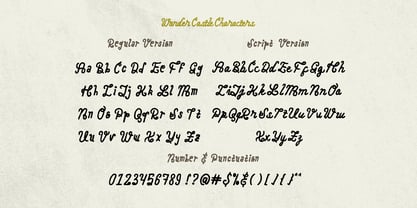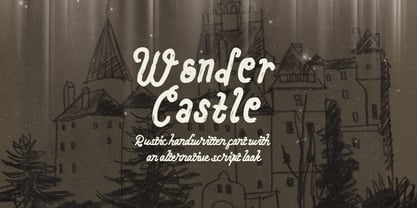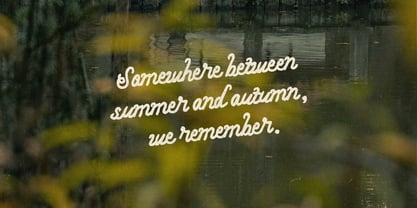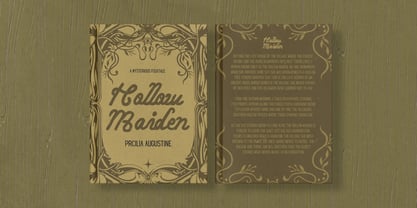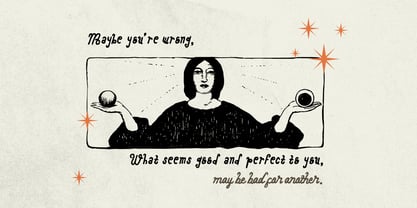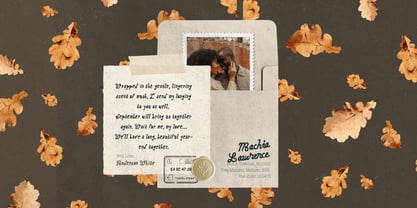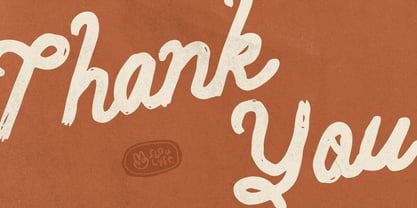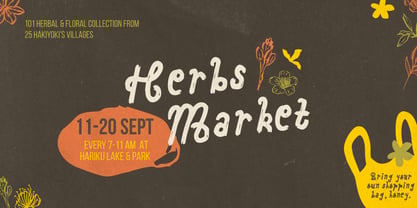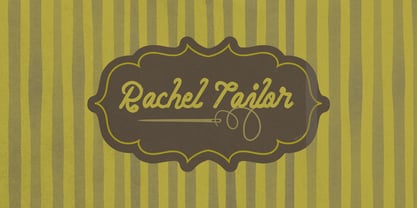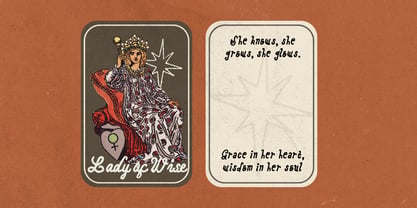
Wonder Castle
by Sloulyfe Studio
The Wonder Castle Font Family was designed by Amelia Dian Isnaini and published by Sloulyfe Studio. Wonder Castle contains 2 styles and family package options. More about this family
A rustic handwritten font with a classic, nostalgic aura, inspired by the charm of old-world history. With an alternative script look, Wonder Castle is here to add a timeless, enchanting touch to your collection, perfect for creating invitations, branding, packaging, posters, and other designs with a magical vintage feel.
Designers: Amelia Dian Isnaini
Foundry: Sloulyfe Studio